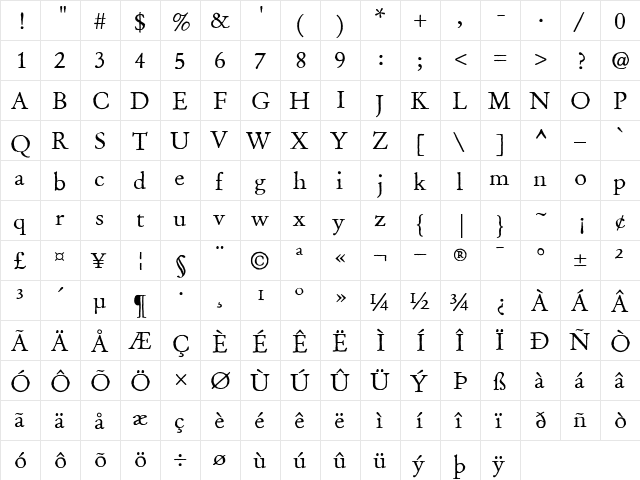
Old Claude LP Regular
Design Context for Old Claude LP Typeface
Old Claude LP is a composed and adaptable typeface that performs quietly and consistently across a wide range of design contexts.